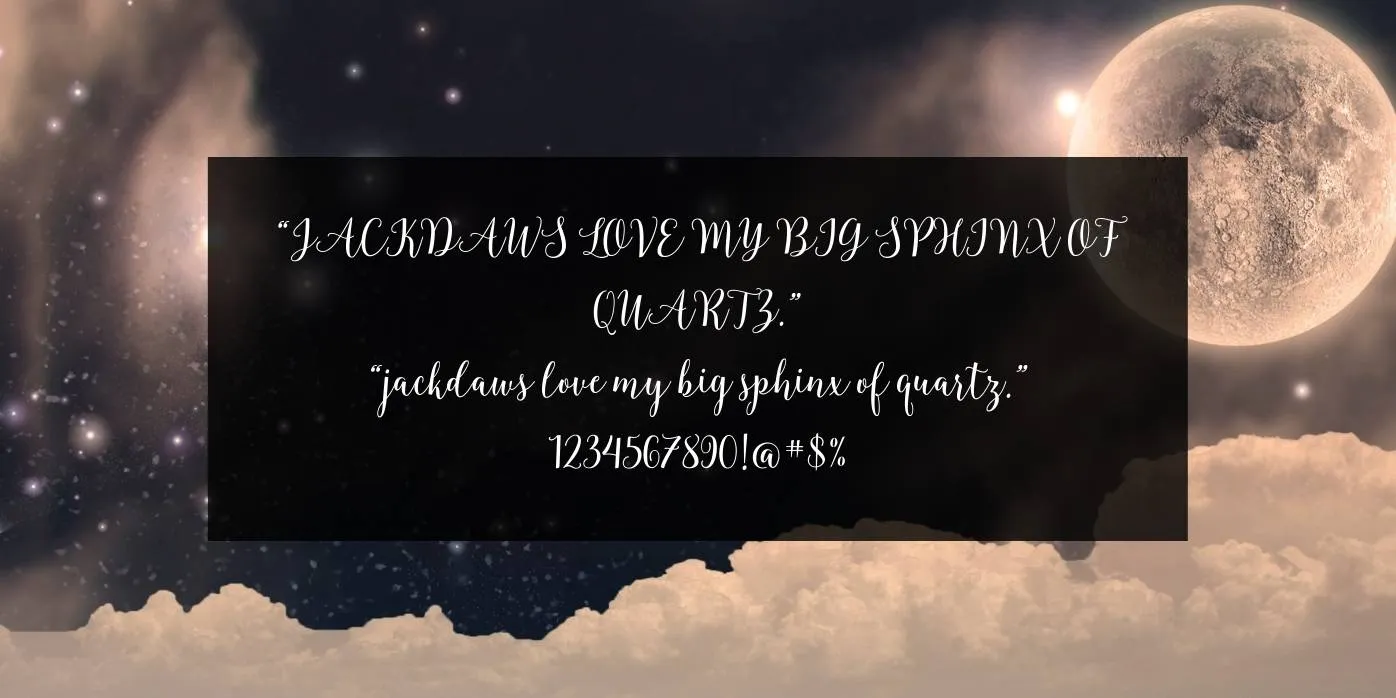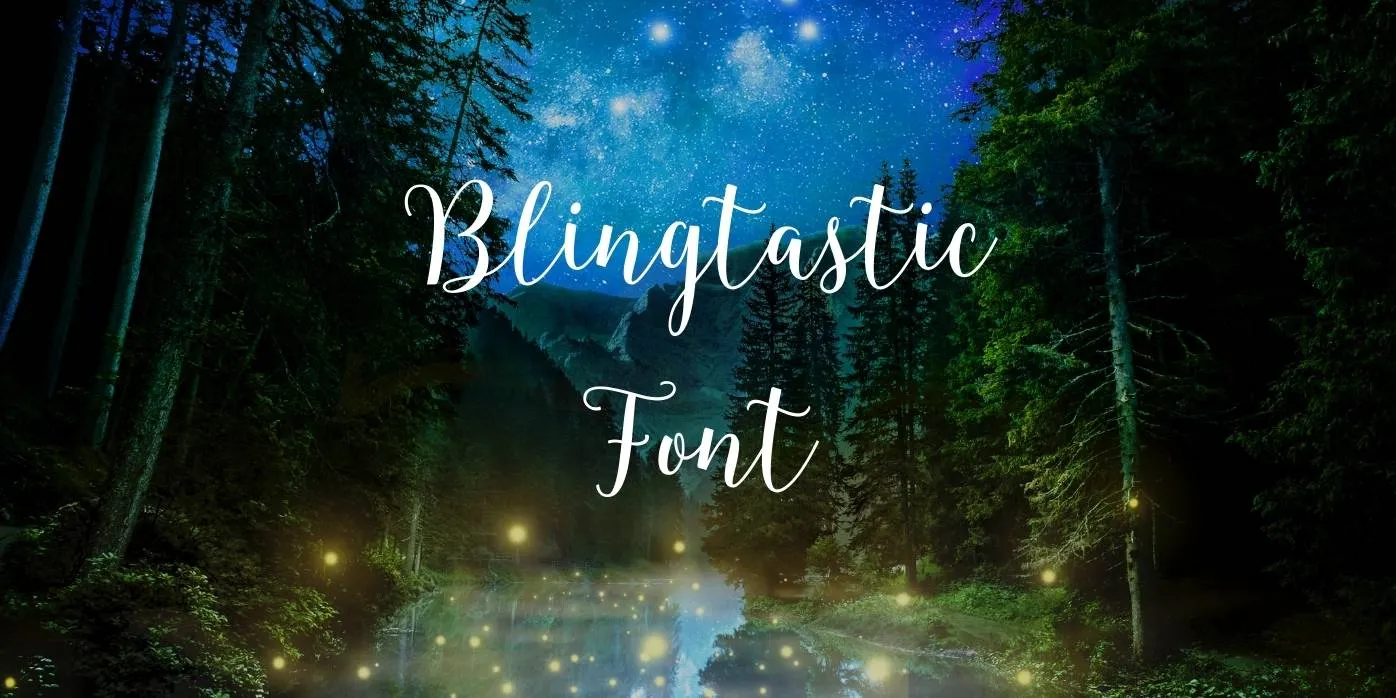
Blingtastic Font
Here, we present Blingtastic Font which is developed and published by Seniors Studio. It belongs to the calligraphy typeface. The current version is 1.0 and was released on 2 July 2017. It is well-specified by the CSS.
This font family supports all OpenType features and includes four different weights: regular, italic, light, and bold. The character set of this font family supports all Latin-based languages. You will have to use its generator tool which is perfect for many designs.